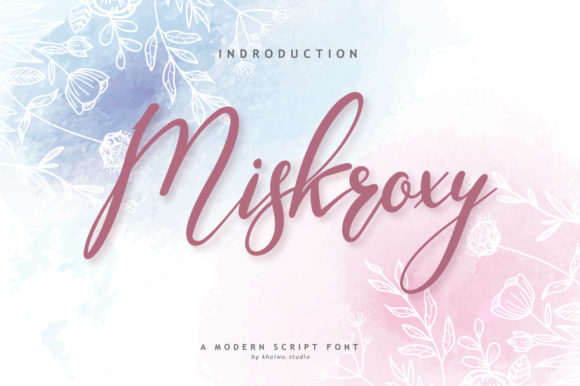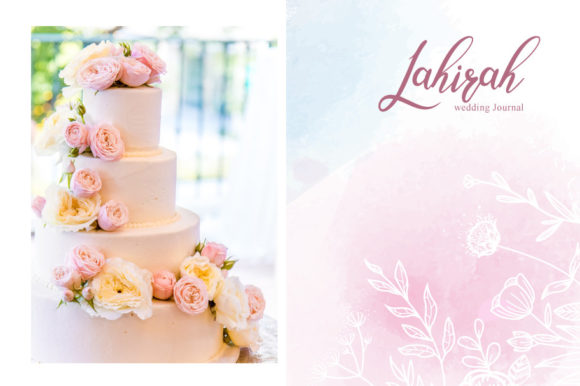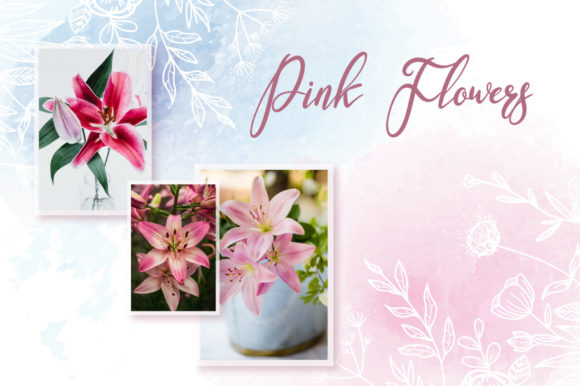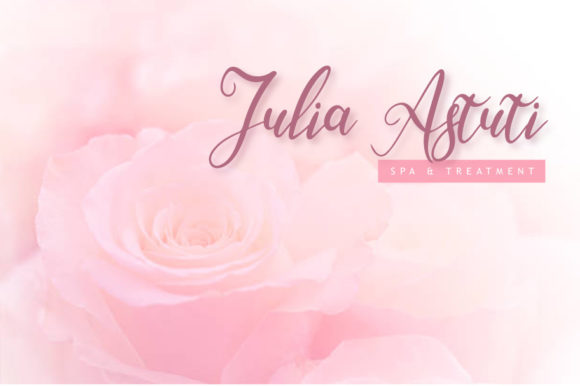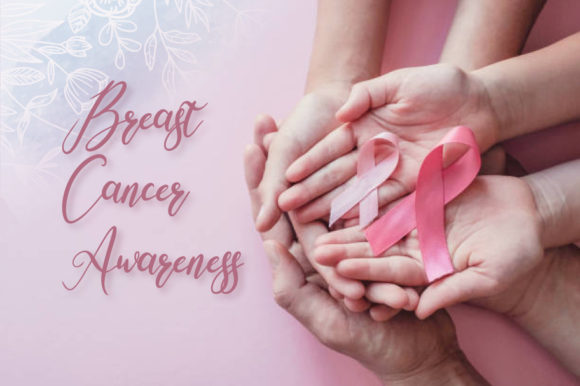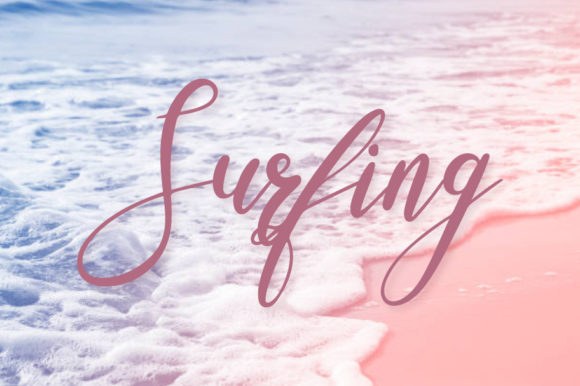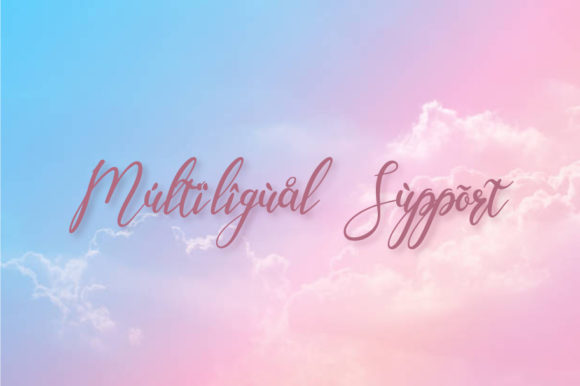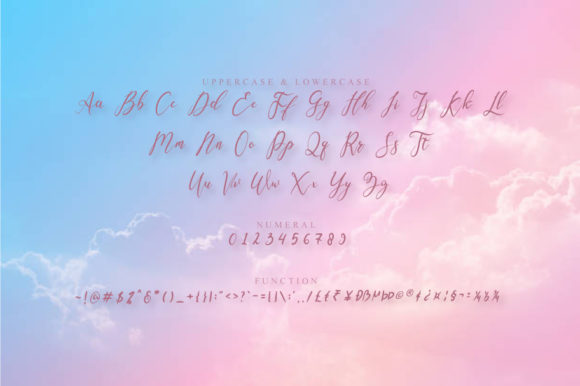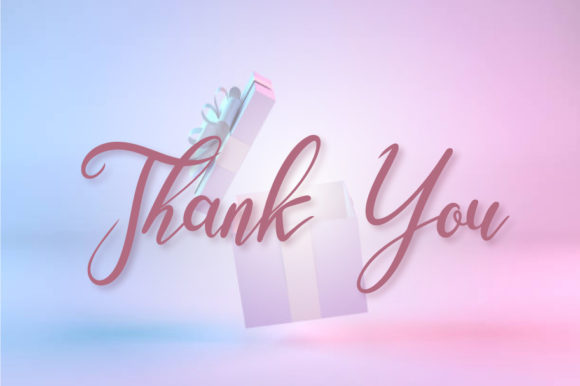
Miskroxy Font
About Miskroxy Font
Miskroxy Script is a lovely and timeless handwritten font. It is the best choice for creating eye catching logos, branding and quotes. Every letter has a unique and beautiful touch, which will make your design come alive!